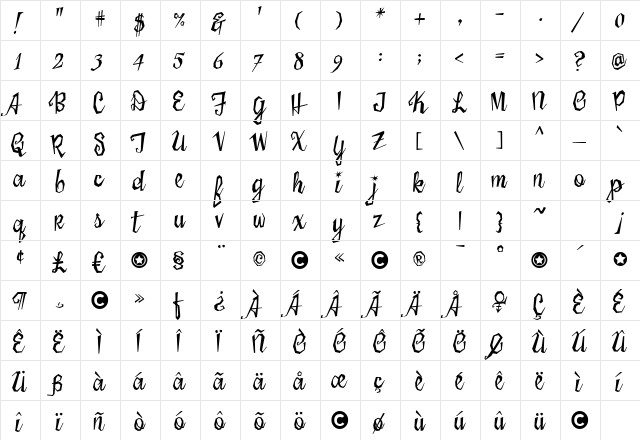
Sister Frisky
Design Context for Sister Typeface
Sister is a composed and adaptable typeface that performs quietly and consistently across a wide range of design contexts.